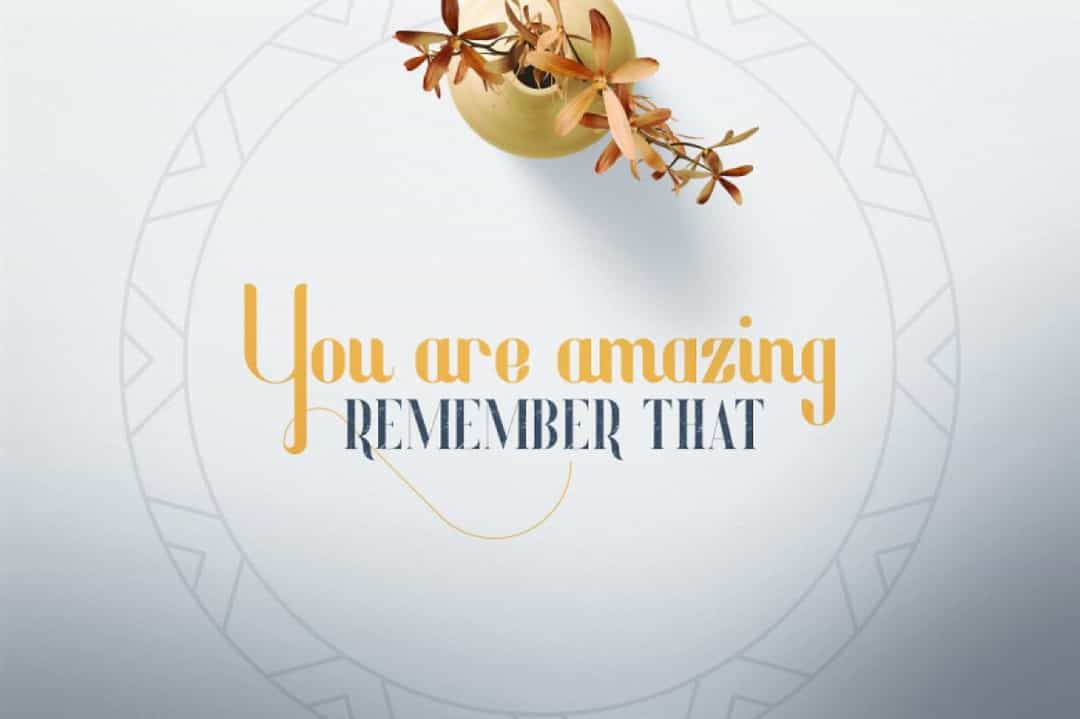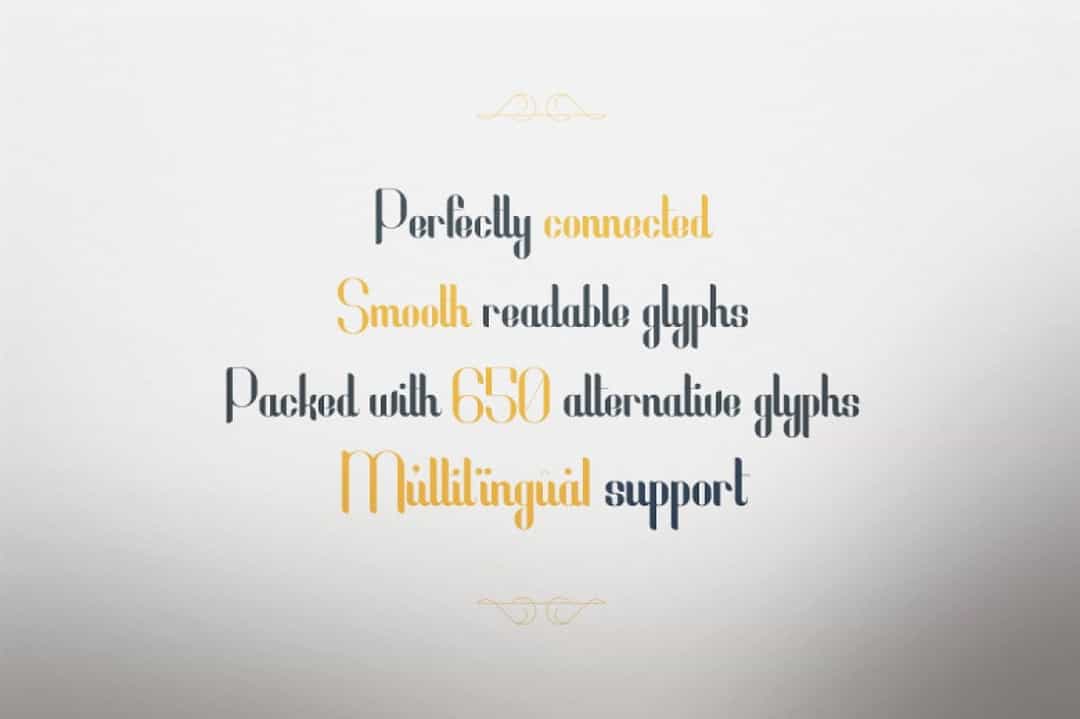
Fonatik is an elegant display font with over 650 alternate glyphs and 110 vector elements, 10 pre-designed logo templates, three bonus font families and multilingual support. Perfect for use across a range of sizes; perfect for logo templates too!